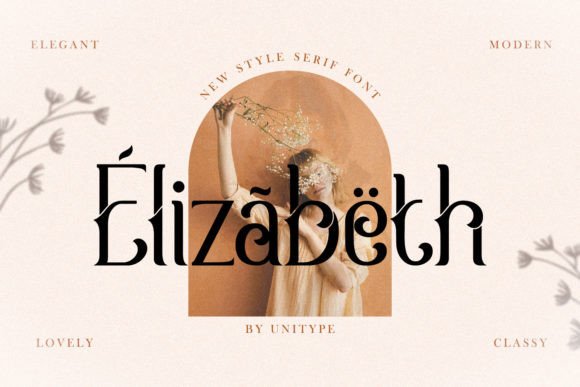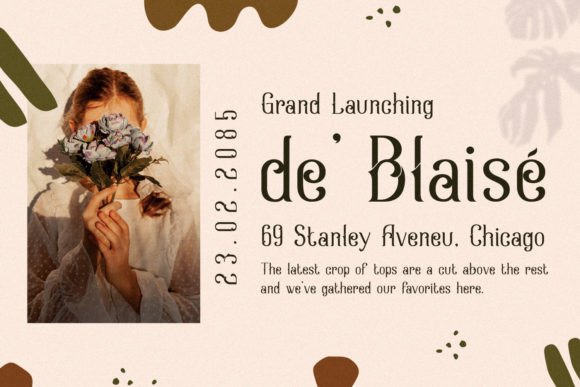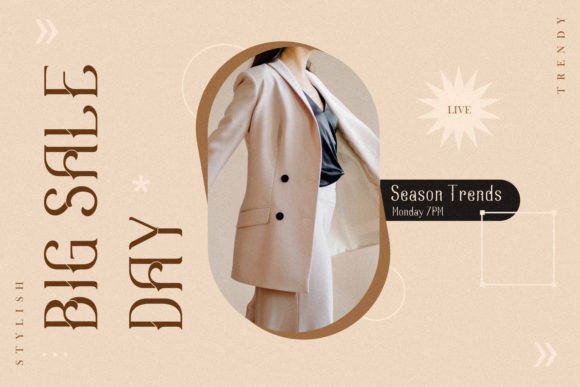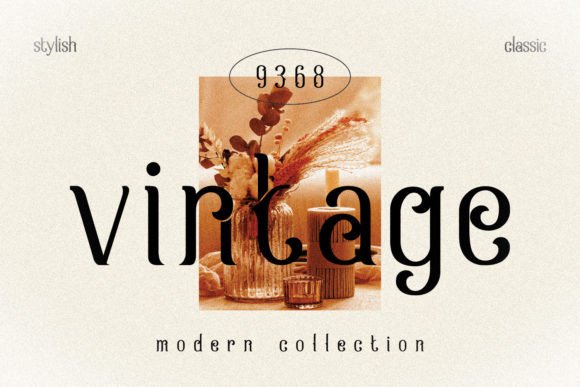
Elizabeth Font
About the Elizabeth Font
From logos to headlines, the Elizabeth Font is the perfect choice for making a lasting impression. It is a decorative typeface that has its own unique style & modern look. It’s the perfect fit for all luxury projects, such as wedding invitations, signatures, luxury logos, printed quotes, greetings cards, social media headers, product packaging, and many more!
This font comes with a lot of language support, this font is perfect for you.
Elizabeth Font Usage Examples
Elizabeth Font Example